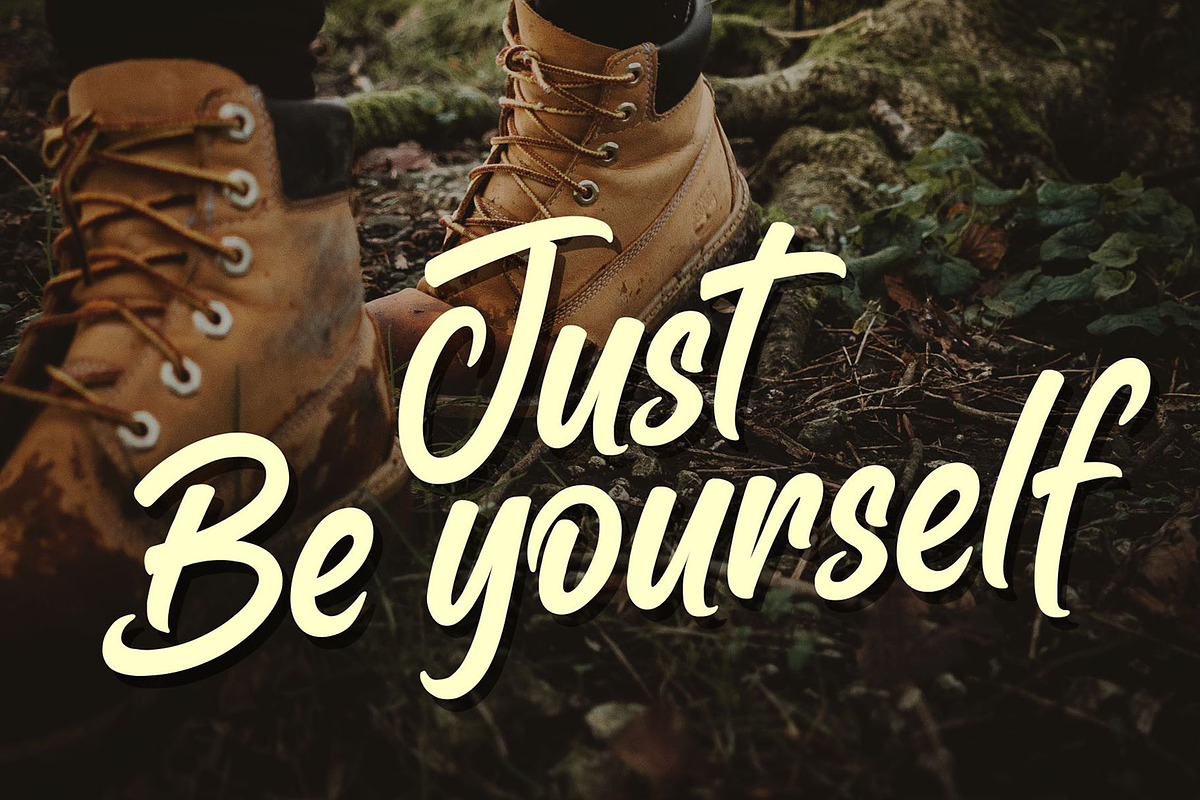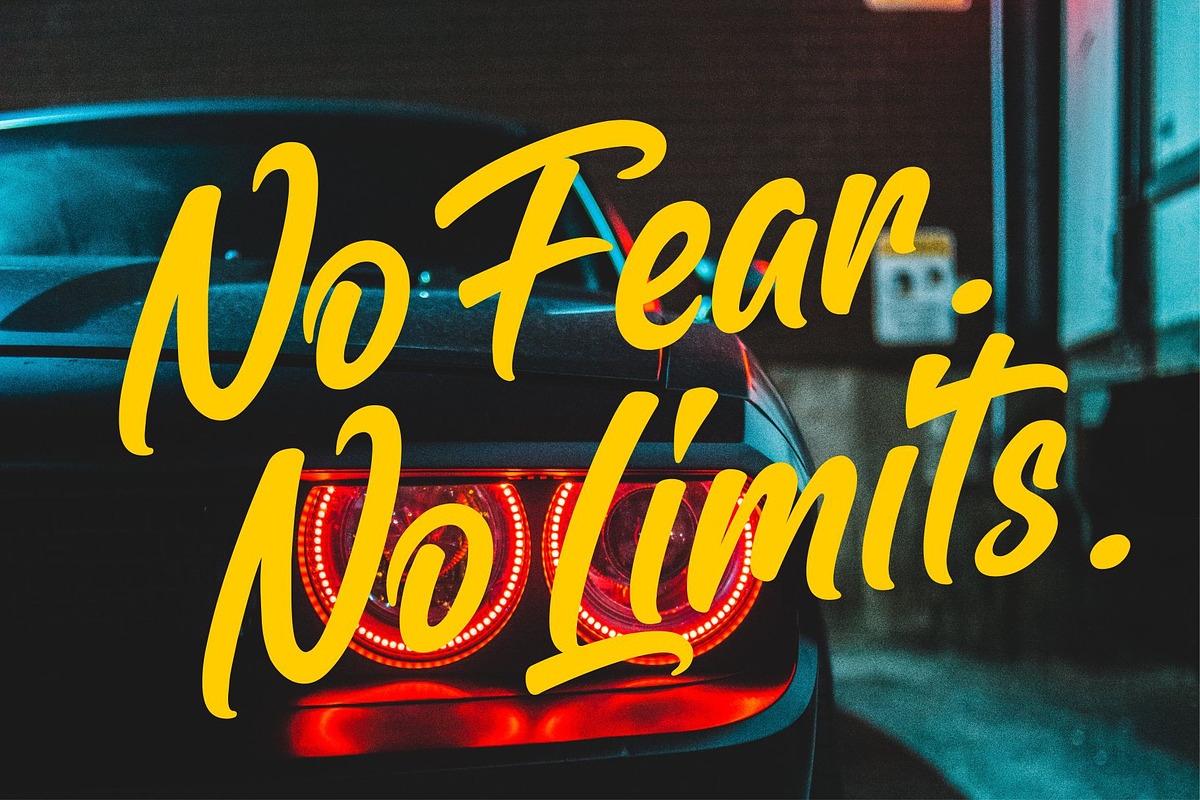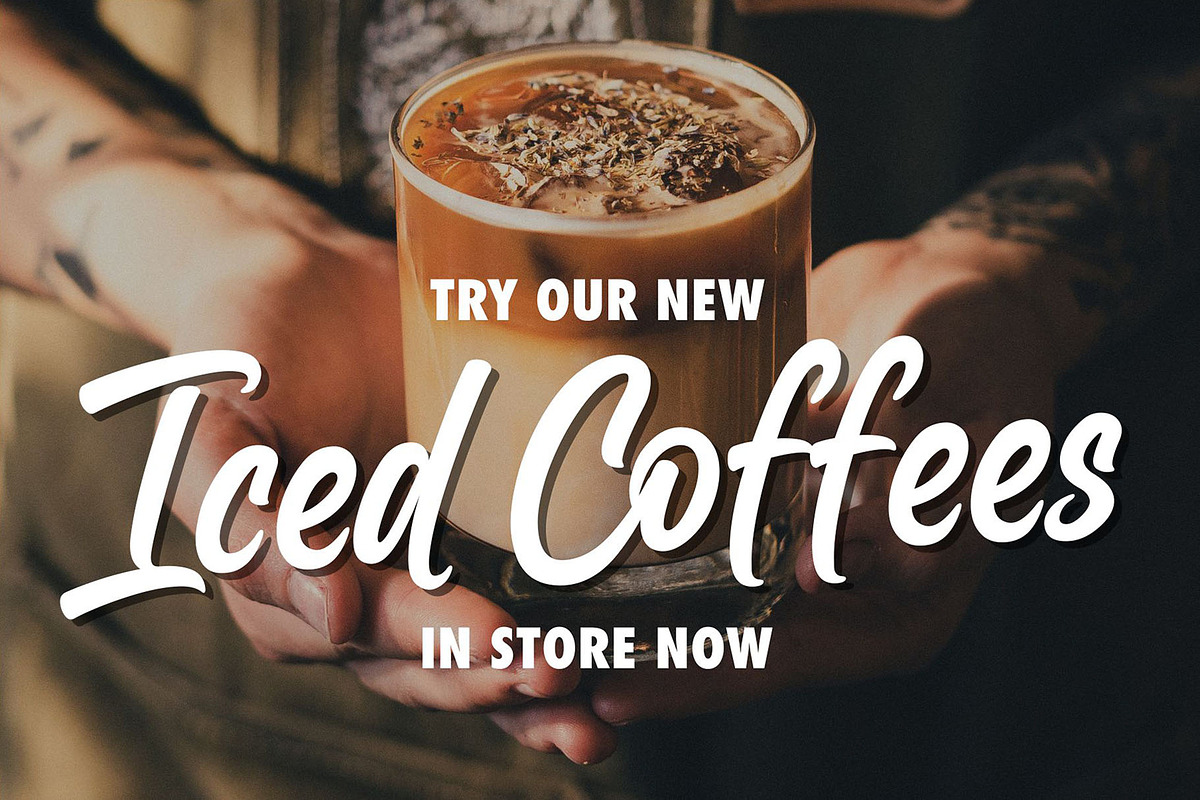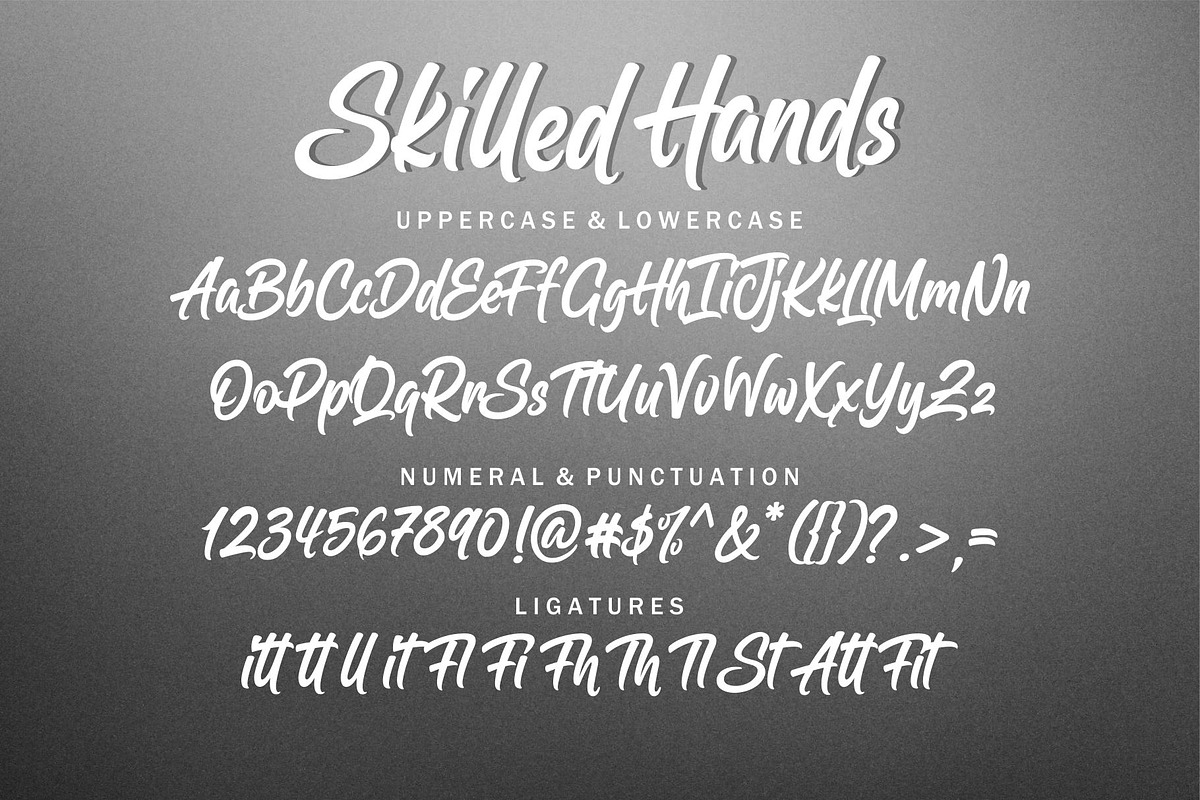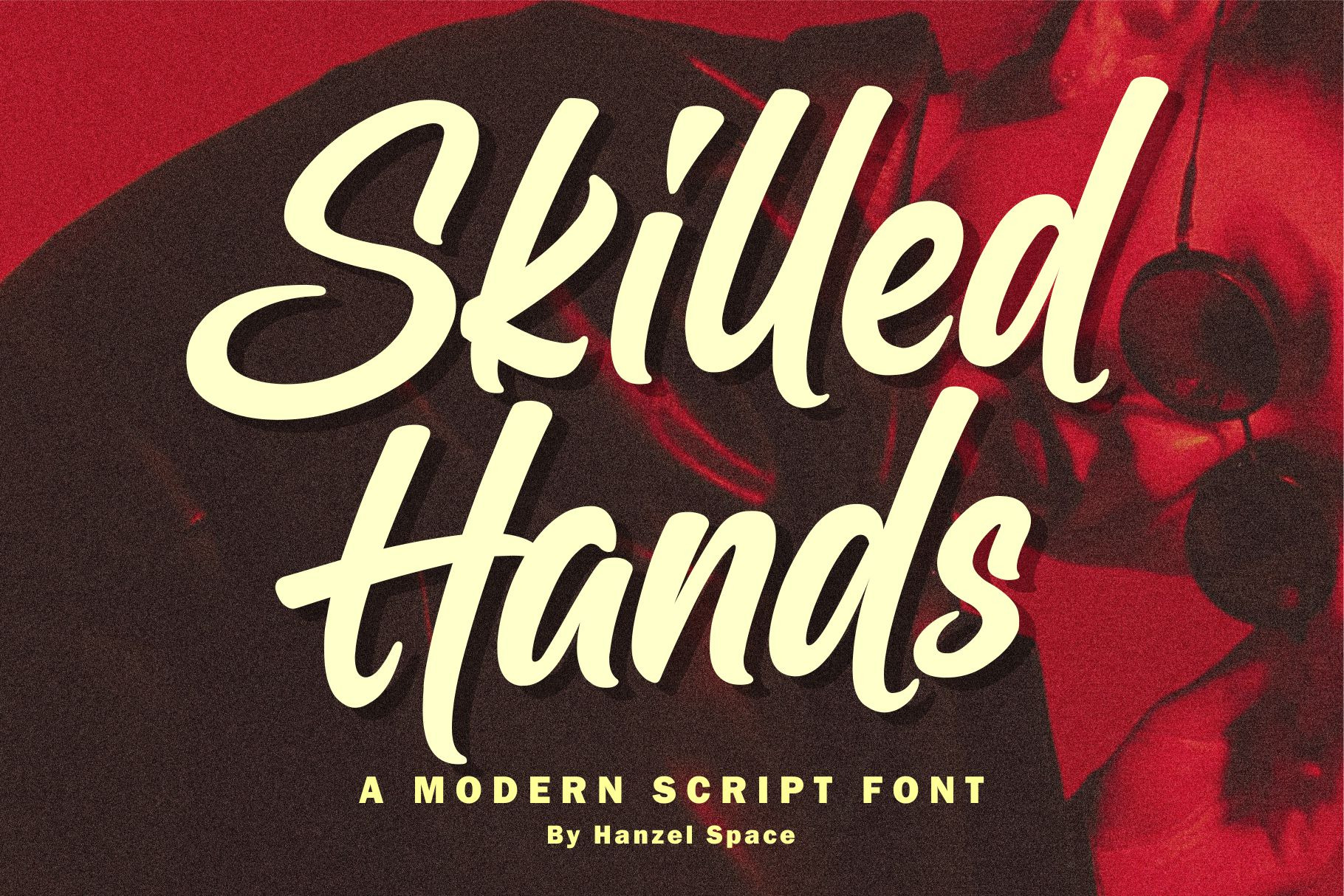
Skilled Hands - Modern Script Font
Skilled Hands - Script Font
Introducing Skilled Hands! With a natural script, this characterful font is ideal for designing handwritten quotes, websites, branding & logo projects, merchandise, social media posts, and product packaging.